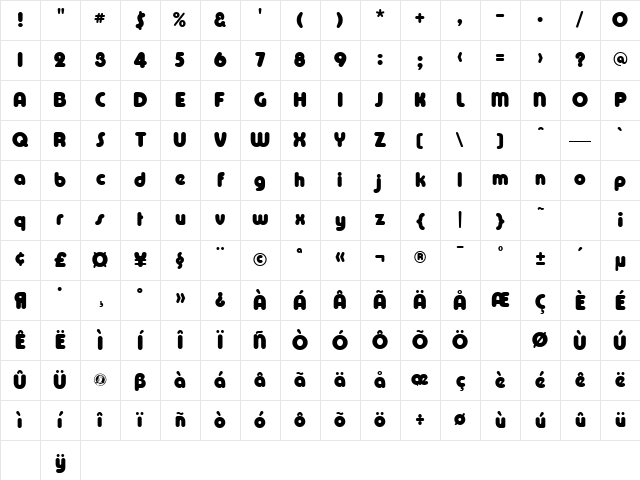
Chance Regular
Design Context for Chance
Chance is a composed and adaptable typeface that performs quietly and consistently across a wide range of design contexts.